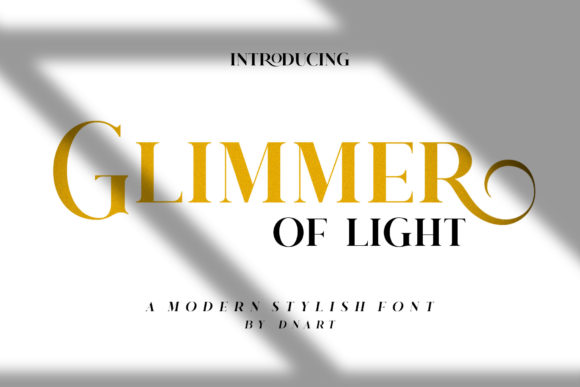
Behold, Glimmer of Light Font, a resplendent serif font that emanates elegance and audacity. Its versatility knows no bounds, making it the perfect companion for a myriad of creative endeavors. Allow yourself to be captivated by its refined strokes and bask in the glory of spectacular designs that are sure to leave an indelible mark.
Glimmer of Light Font is a testament to the power of typography, effortlessly evoking a sense of nostalgia and timeless charm. Its vintage allure adds a touch of sophistication to any project, whether you're crafting logos, branding materials, or invitations that exude an air of distinction. Let your imagination soar as you explore the endless possibilities that await with this remarkable font.
With Glimmer of Light Font, you hold the key to unlocking a world of visual enchantment. Its exquisite curves and flourishes bestow a sense of grace upon your creations, elevating them to new heights of elegance. Prepare to be mesmerized as your designs come alive, imbued with a timeless beauty that transcends the boundaries of time.
Immerse yourself in the boundless creativity that Glimmer of Light Font offers. Its versatility extends far beyond vintage designs, lending itself effortlessly to modern and contemporary aesthetics alike. Experience the joy of crafting social media posts and website designs that radiate with personality and flair. Unleash your inner artist and let your designs bloom with creativity.
Step into the realm of Glimmer of Light Font and embark on a journey of typographic exploration. Allow its timeless charm to captivate your audience, leaving them spellbound by the sheer brilliance of your designs. With this font as your ally, you possess the power to transform the ordinary into the extraordinary, leaving a lasting impression that will reverberate through the hearts and minds of all who behold your creations.